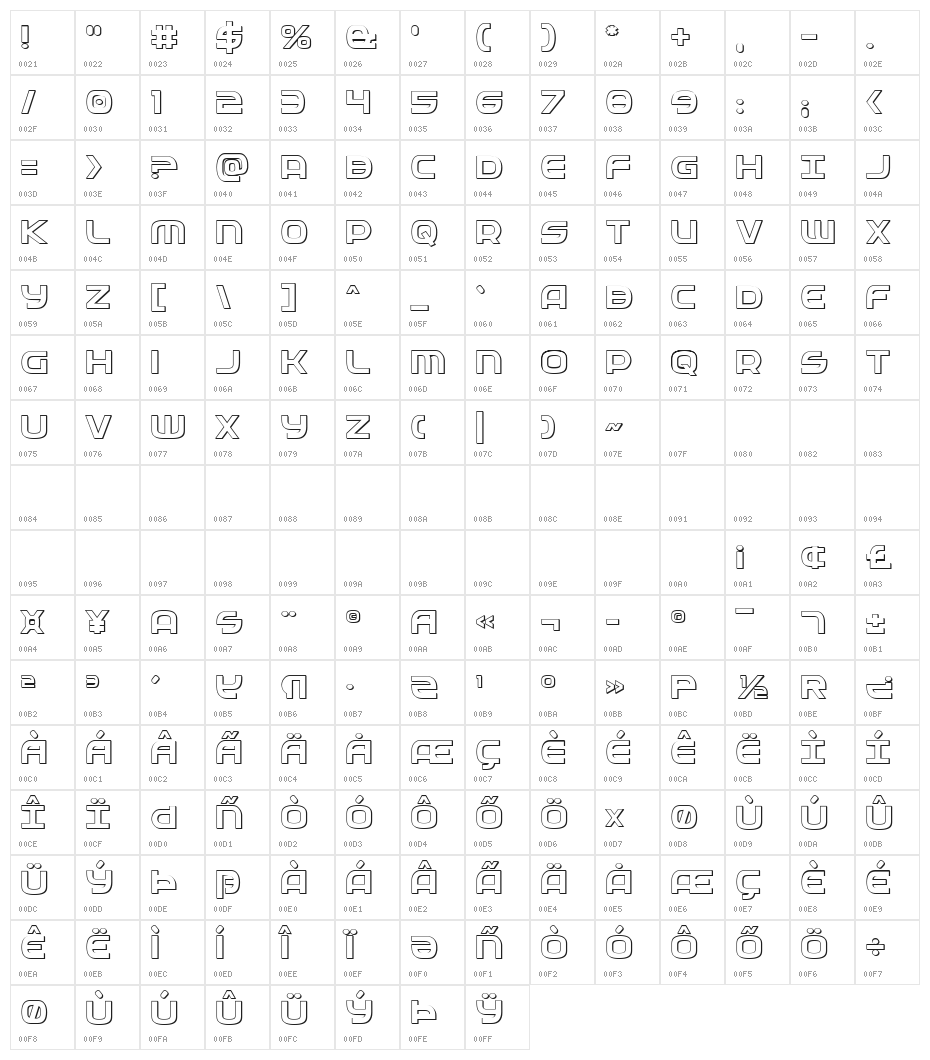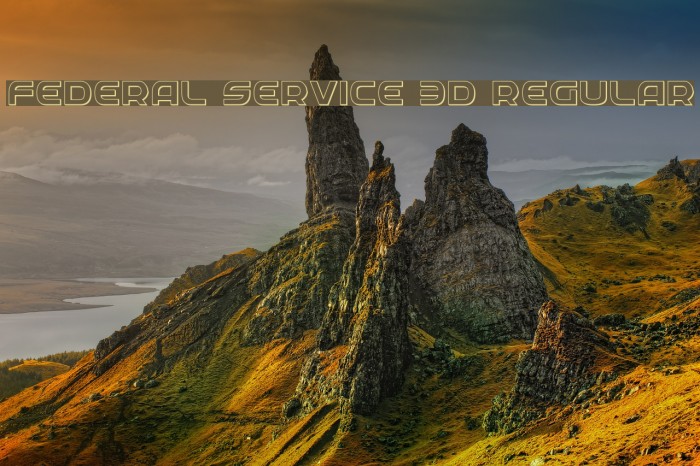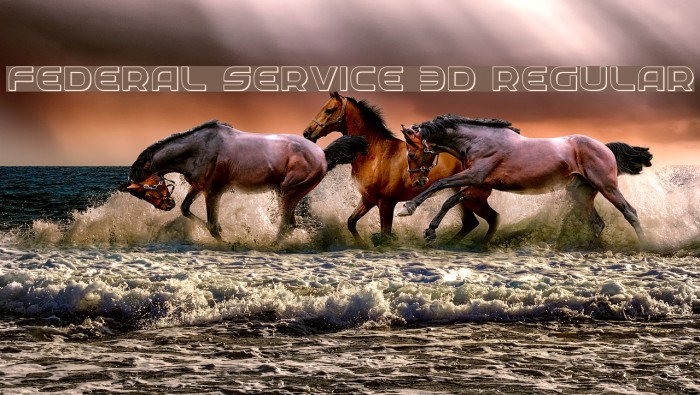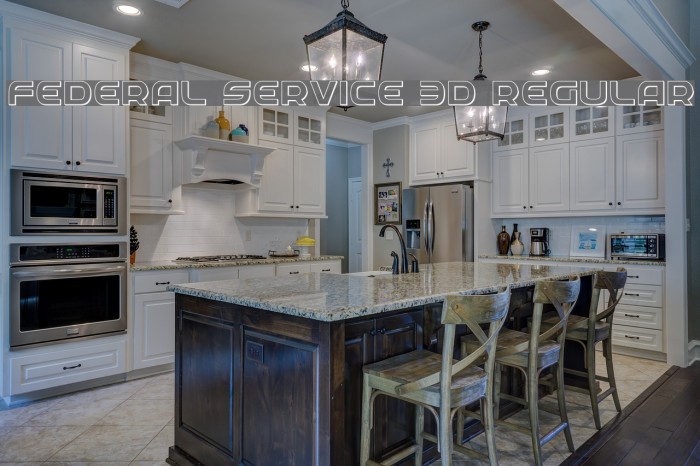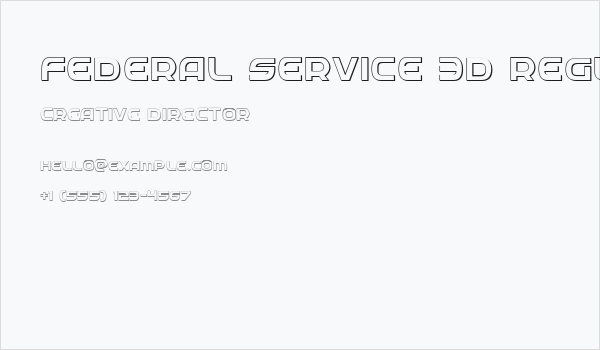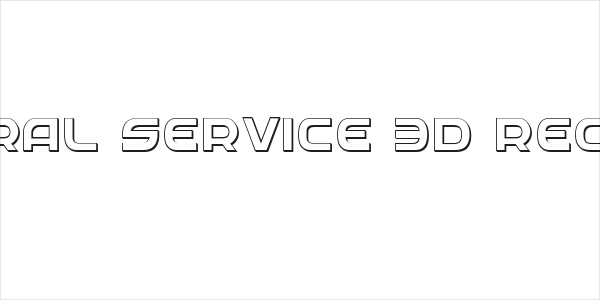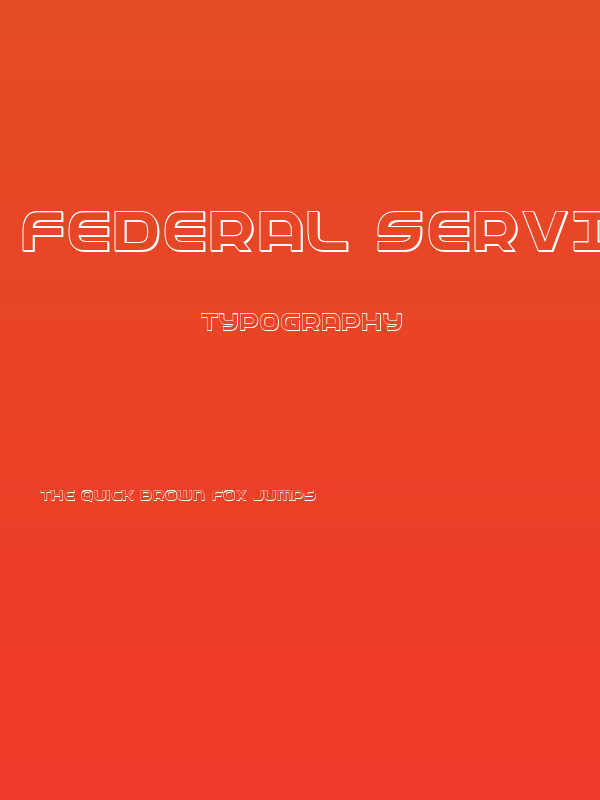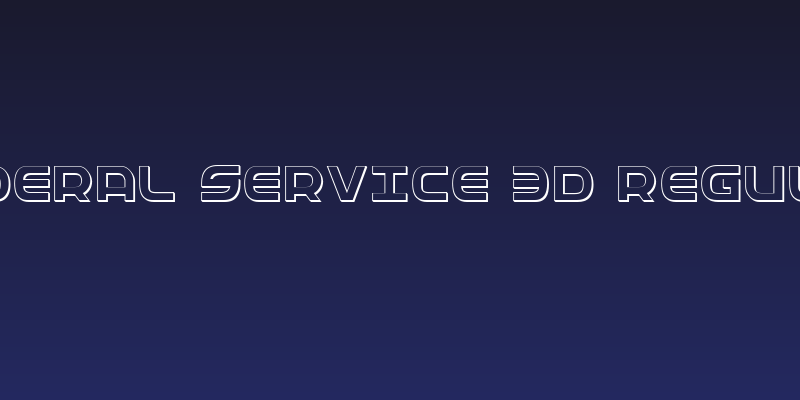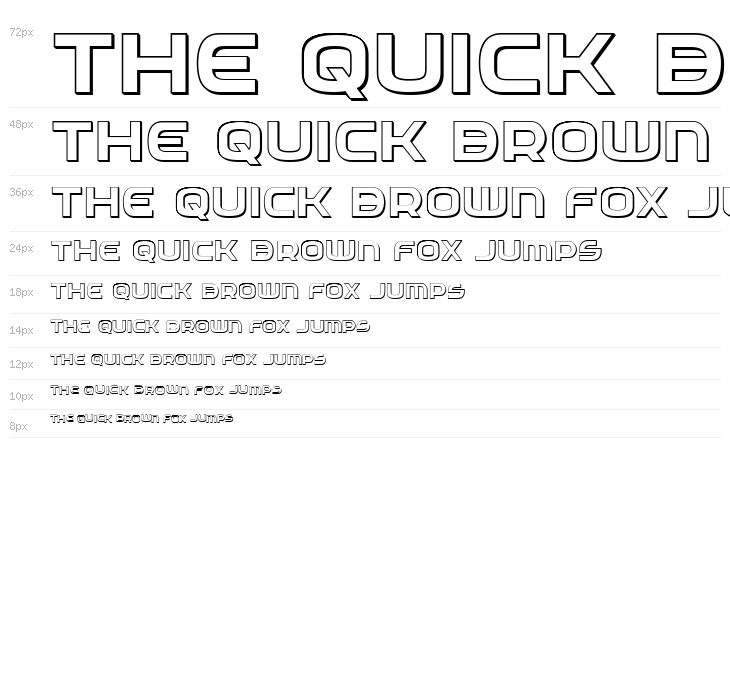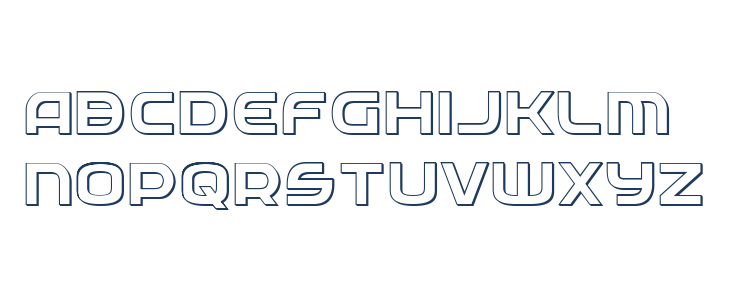
Federal Service 3D Regular Font
Federal Service 3D Regular Description
This font features a bold, geometric design with a three-dimensional effect that gives it a modern and futuristic appearance. The characters are outlined, creating a hollow look that adds depth and visual interest. The uppercase letters are uniform in height, with consistent stroke widths that contribute to a clean and structured aesthetic. The numbers and special characters maintain the same style, ensuring cohesion across all elements. This font's unique style makes it suitable for projects that require a standout, contemporary look.
Proposed ProjectsIdeal for futuristic branding, tech-related designs, posters, and digital media.